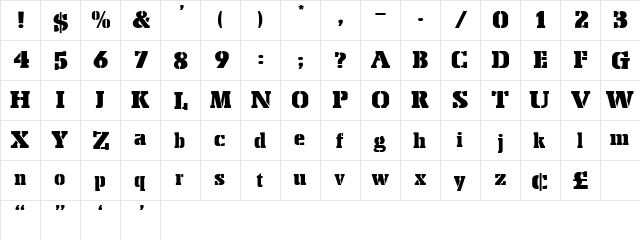
Stencil Export Regular
Stencil Export has the rough pragmatism of spray-painted stencil signage, adding a raw, street-level authenticity to designs.
A strong choice for packaging that needs edge, warehouse aesthetics, and rough-and-ready visual identities.
Pro Tip: Use Stencil Export at large sizes on packaging, posters, or apparel where the stencil cutaways read clearly. Avoid small sizes where those gaps become visual noise.